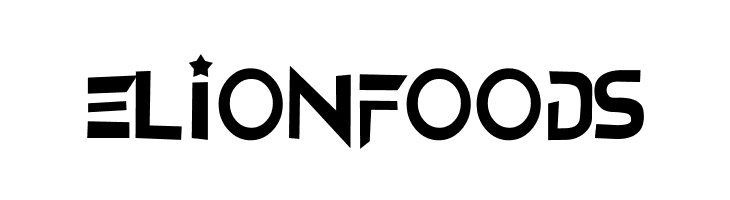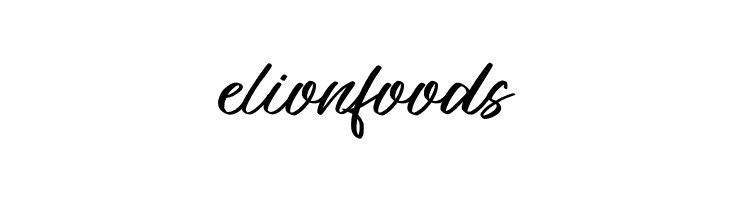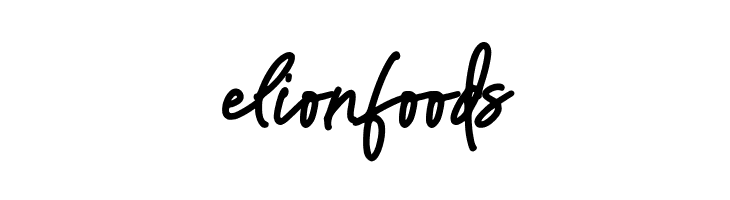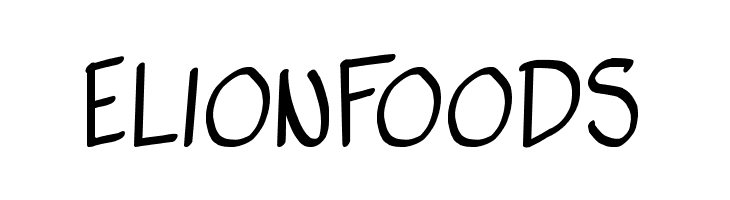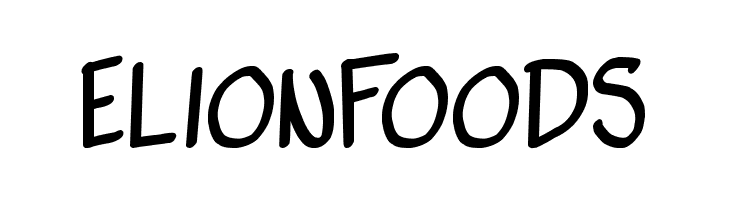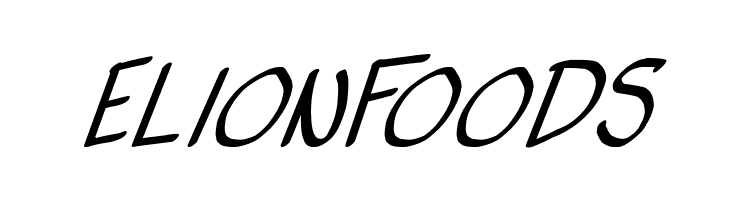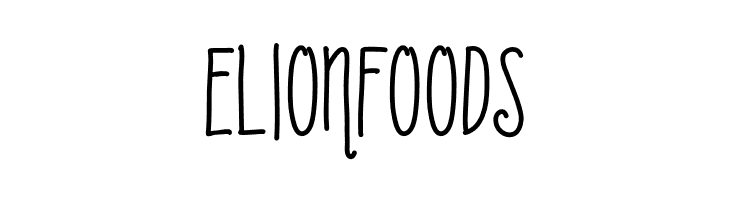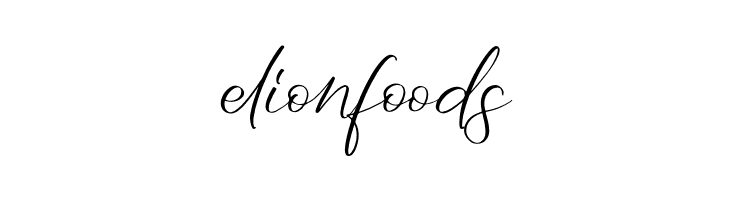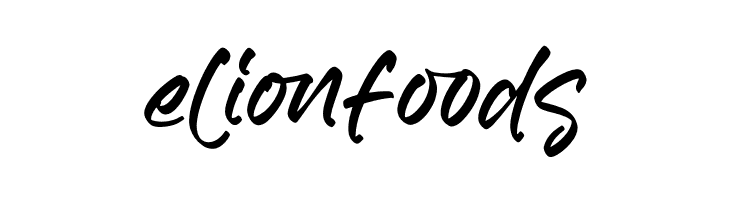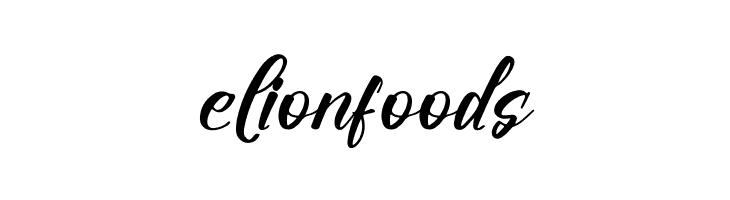
A lively handwritten script font with fluid, connected characters.
A bold, artistic font with dynamic curves and sharp edges, perfect for creative projects.
A bold, angular font with a futuristic and edgy design.
A dynamic and elegant script font with flowing, cursive letterforms.
A playful, handwritten font with elongated, quirky letterforms.
A playful, hand-drawn font with tall, narrow characters and a whimsical style.
A lively, cursive font with medium contrast and fluid strokes.
A bold, modern font with a unique horizontal line pattern for a dynamic look.
Elegant handwritten script font.
A playful, casual handwritten font with dynamic strokes and a friendly appearance.
A playful, handwritten font with a dynamic and informal style.
A bold, handwritten font with a playful and dynamic style.
A bold, playful font with a hand-drawn, energetic style.
A dynamic, handwritten-style font with an italicized, modern look.
An italicized, handwritten font with a dynamic and fluid style.
Elegant handwritten script font.
A bold, graffiti-inspired font with sharp, angular lines and a rebellious style.
A decorative and mystical font with bold, flowing characters and unique embellishments.
A mysterious, hollow font with an ancient, coded appearance.
A rugged, hand-drawn font with a pirate-themed, adventurous style.
An elegant, flowing script font with graceful, cursive strokes.
A bold, distressed font with a gritty, textured appearance.
A playful, hand-drawn style font with bold, rounded characters.
A bold, hand-drawn font with a comic book style and dynamic character.
A bold, italicized handwritten font with a playful and dynamic style.
A playful, hand-drawn style font with bold, irregular characters.
A whimsical and decorative font with curly embellishments and playful style.